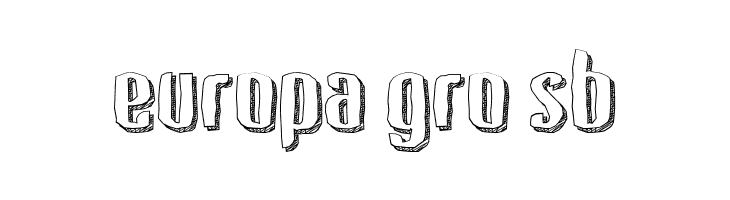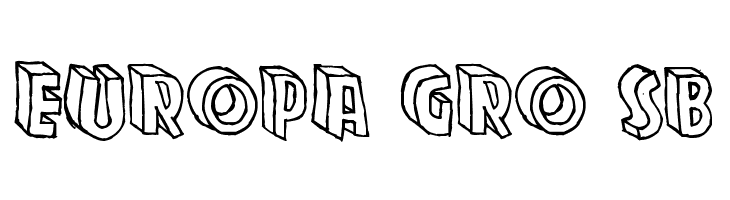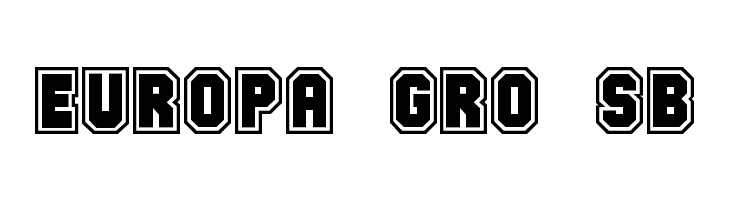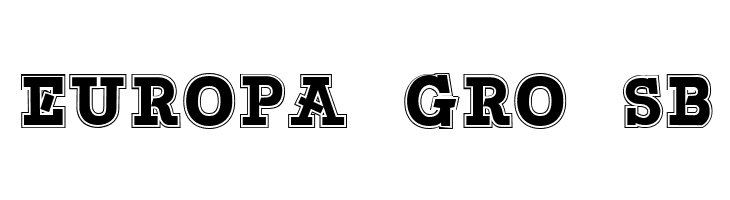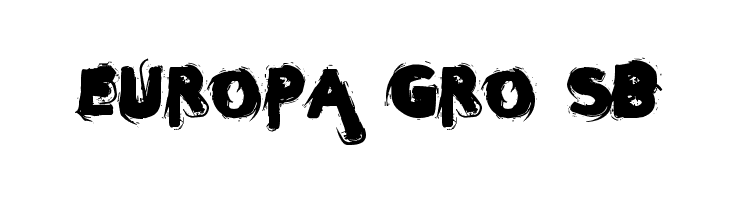
( Fonts by Spork Thug Typography - Josh Wilhelm - www.lifewithouttaffy.com/taffy/blog )
A playful, bold font with irregular patterns and a hand-drawn style.
( Fonts by Jonathan Richard - jonathanr.net )
A bold, rugged font with a hand-drawn, textured appearance.
( Fonts by www.junkohanhero.com )
A bold, 3D hand-drawn font with a playful, cartoonish style.
( Fonts by Fernando Carvente - serifdechocolate.wordpress.com )
A bold, outlined collegiate-style font with a strong, three-dimensional effect.
( Font by Berry Brooks - Fontocide )
A bold, playful font with exaggerated curves and a whimsical style.
( Fonts by www.lars-manenschijn.nl )
A bold, brushstroke-style font with a dynamic and artistic appearance.